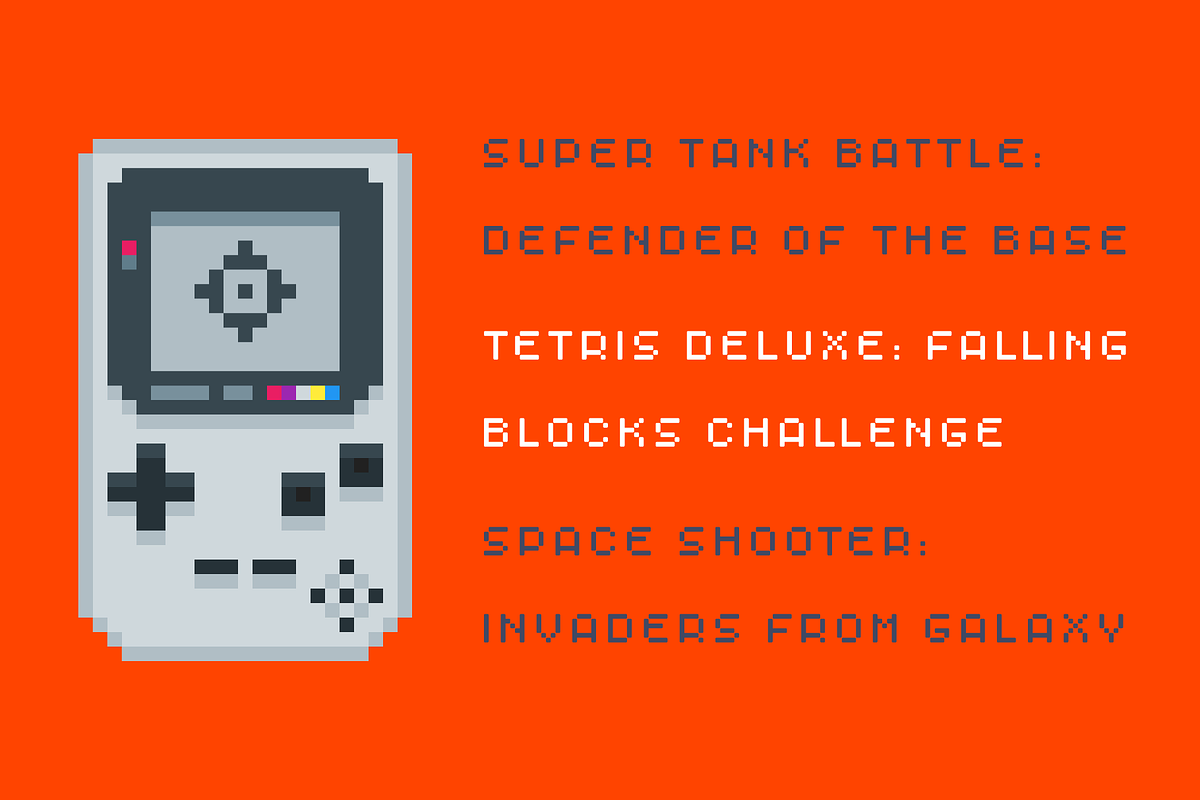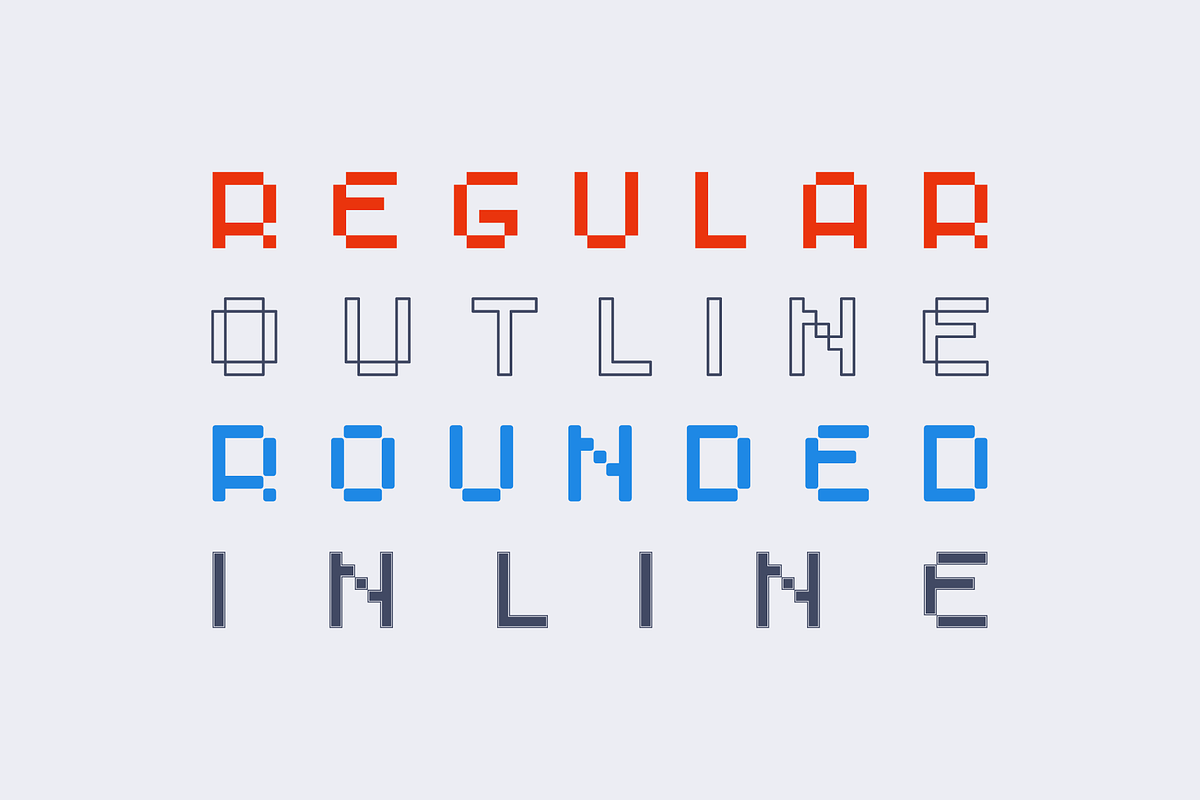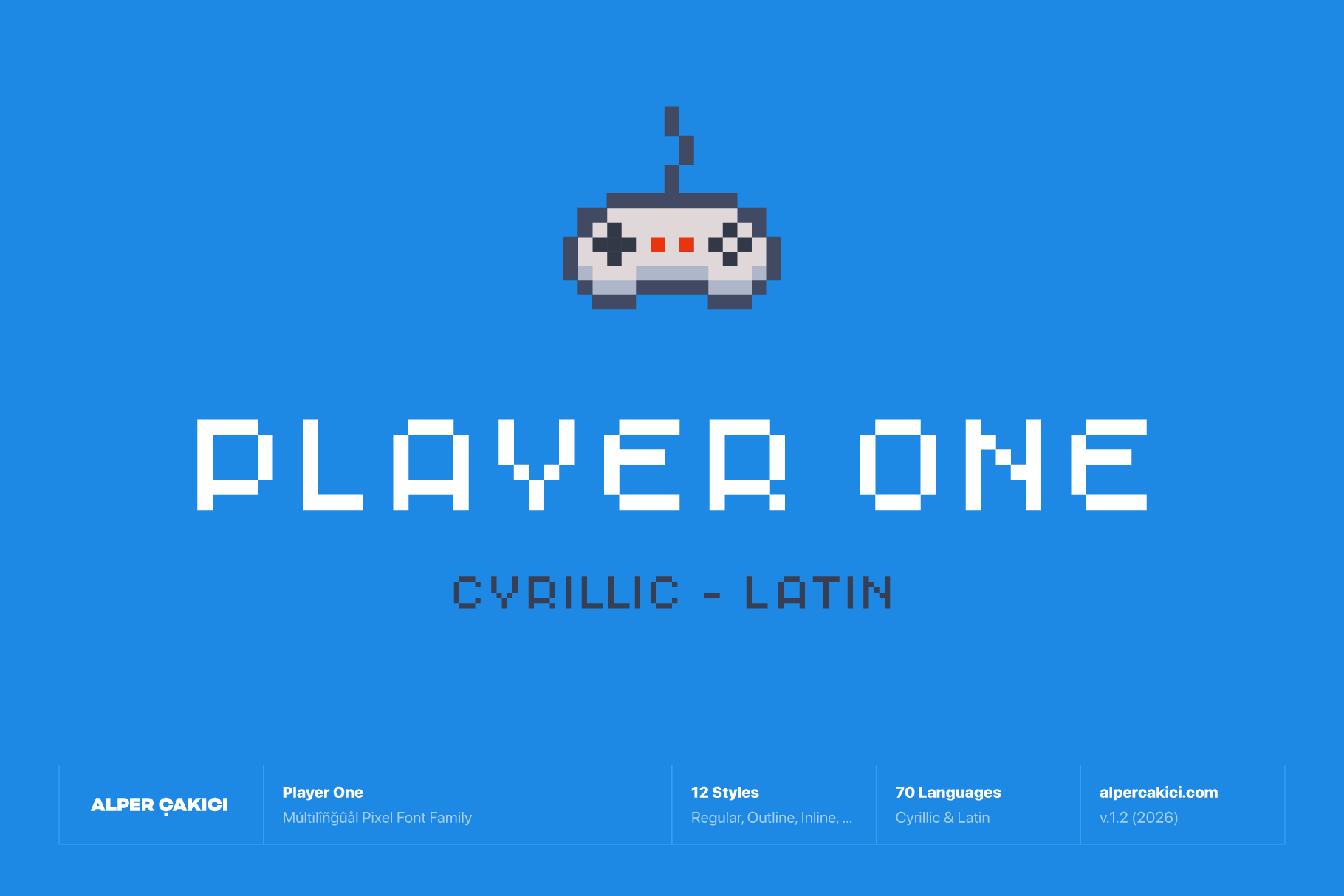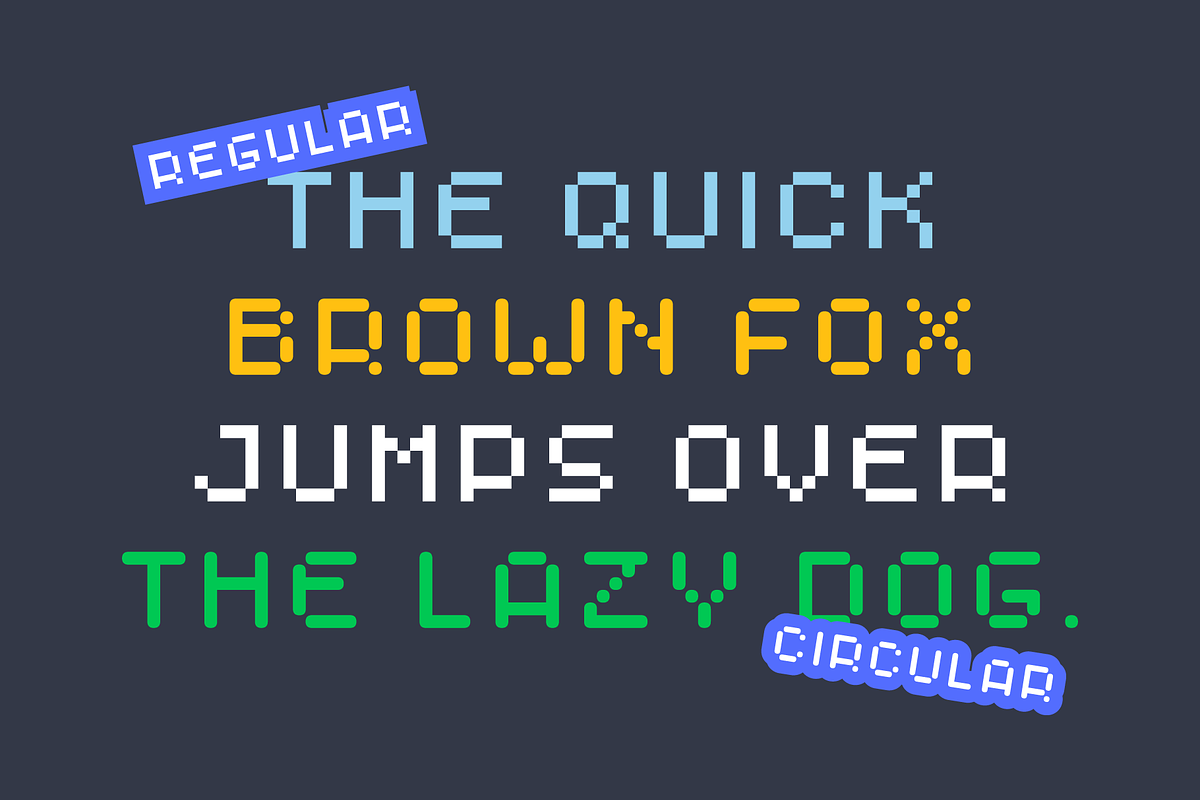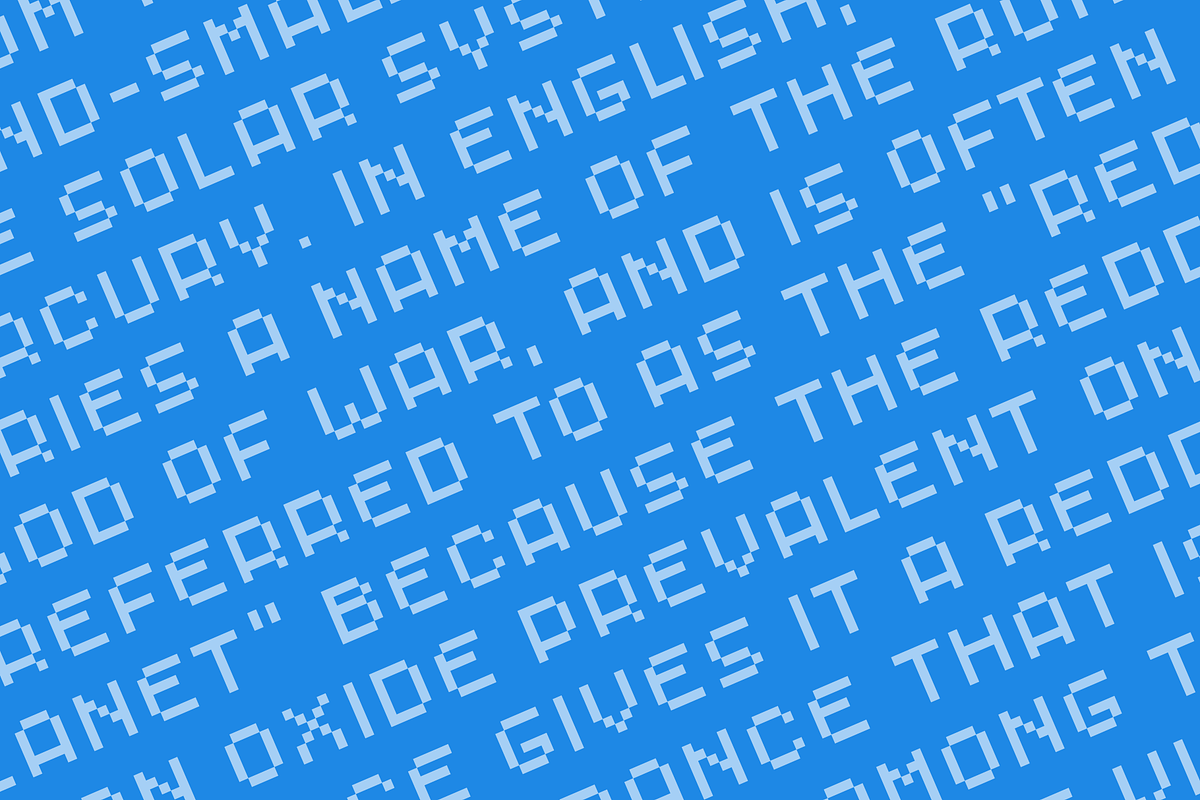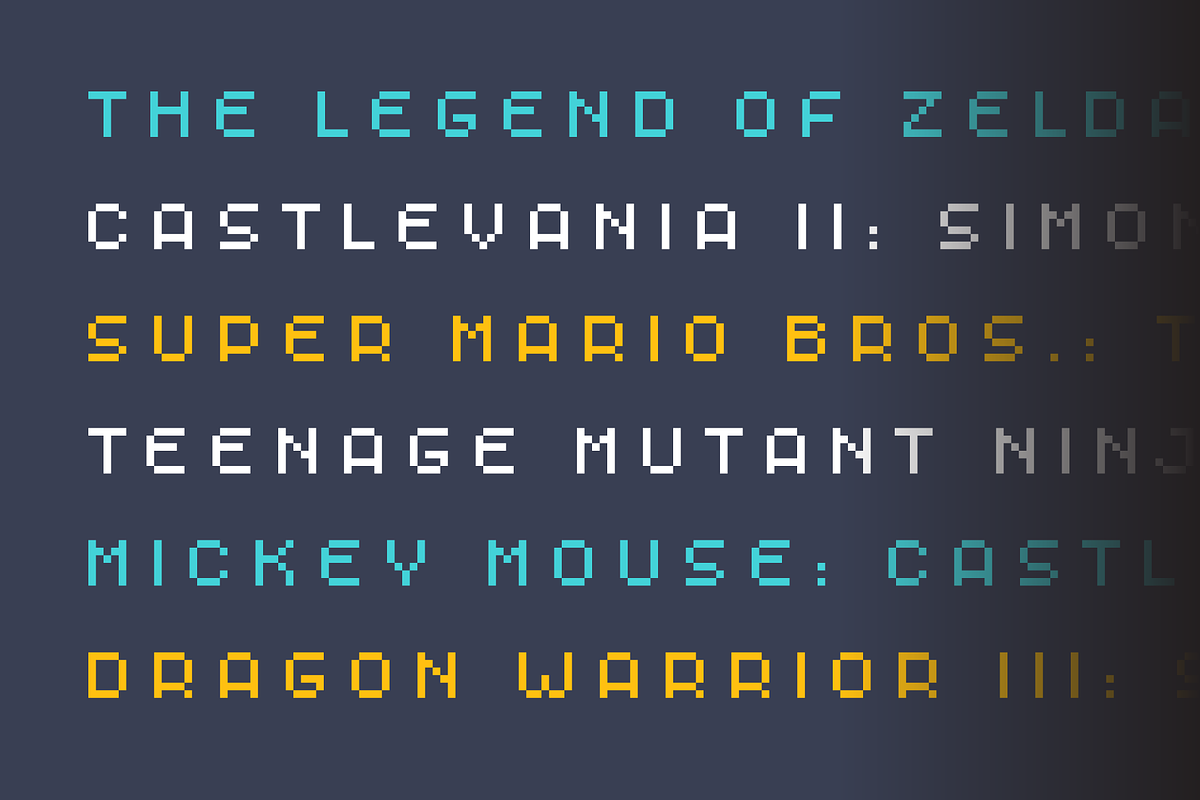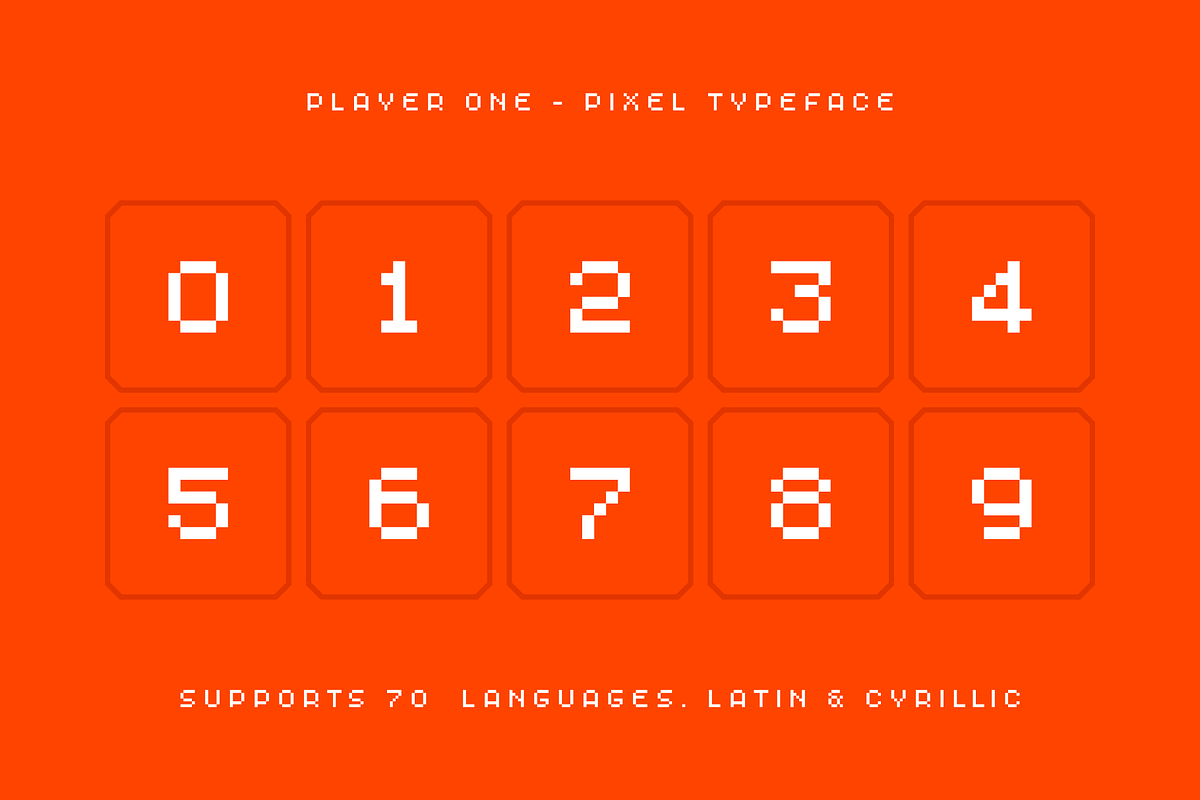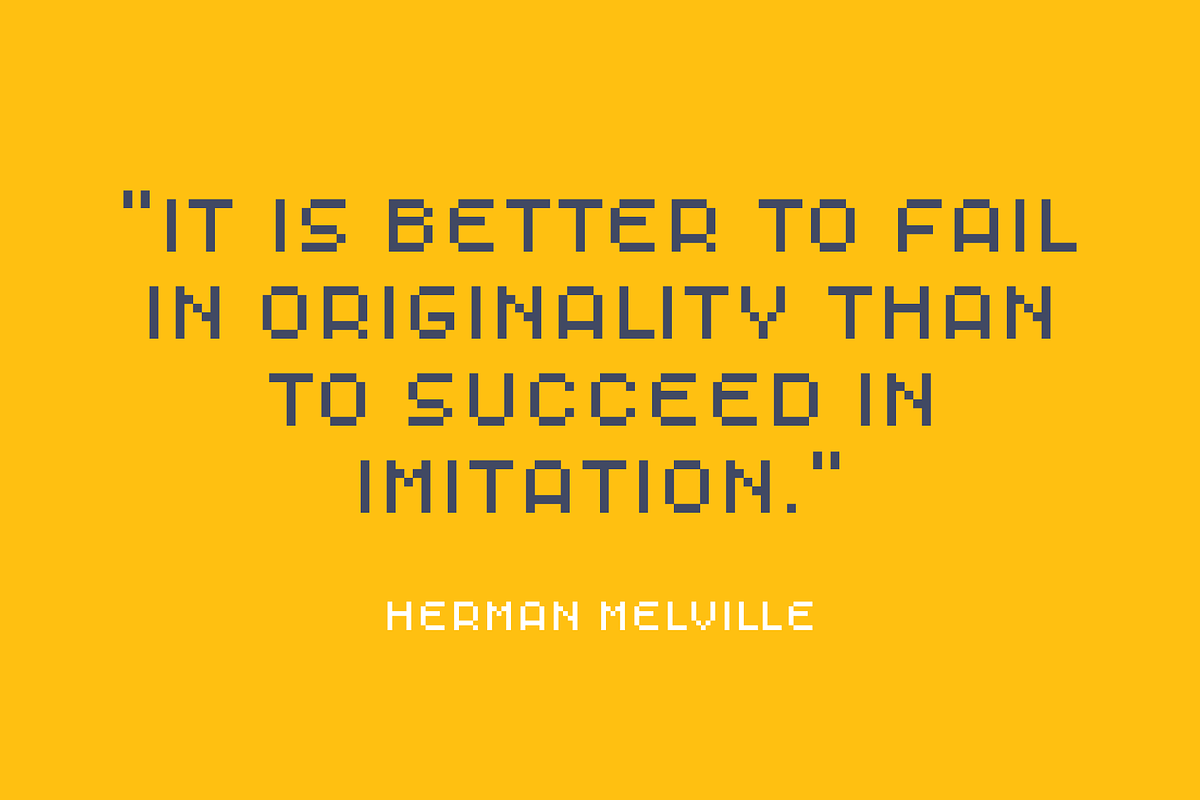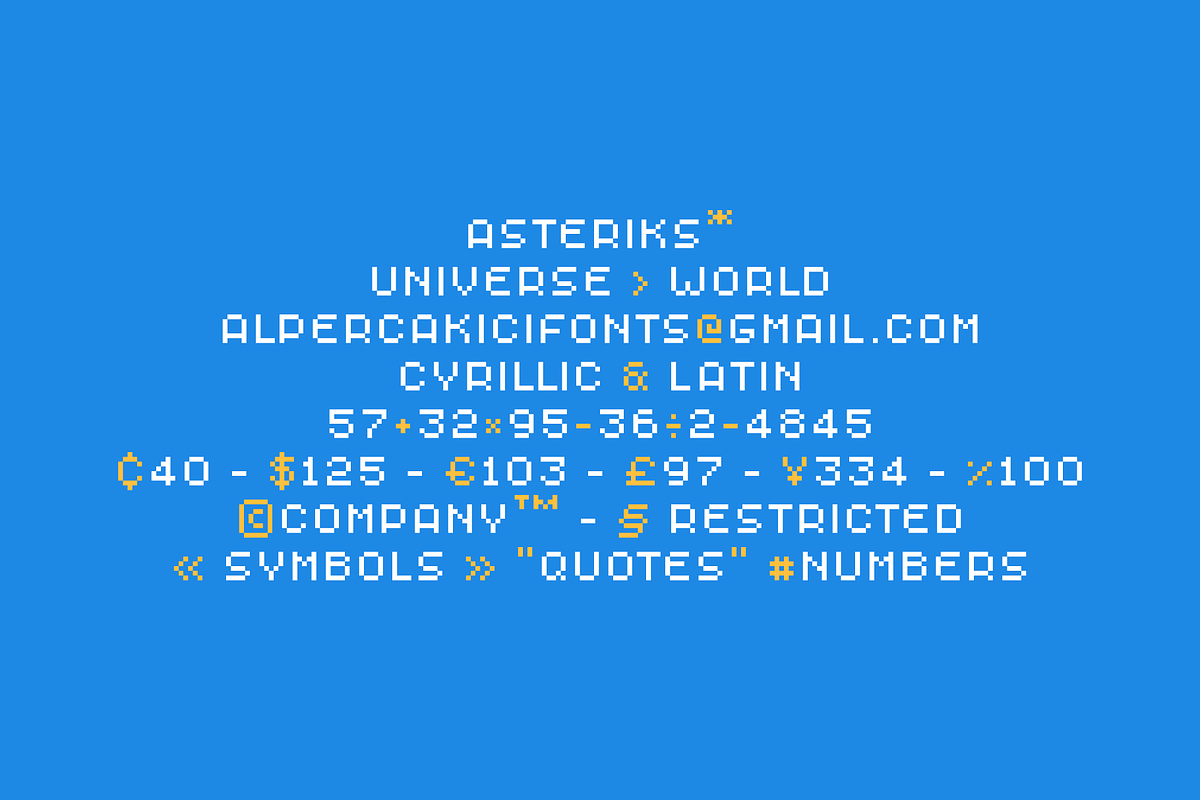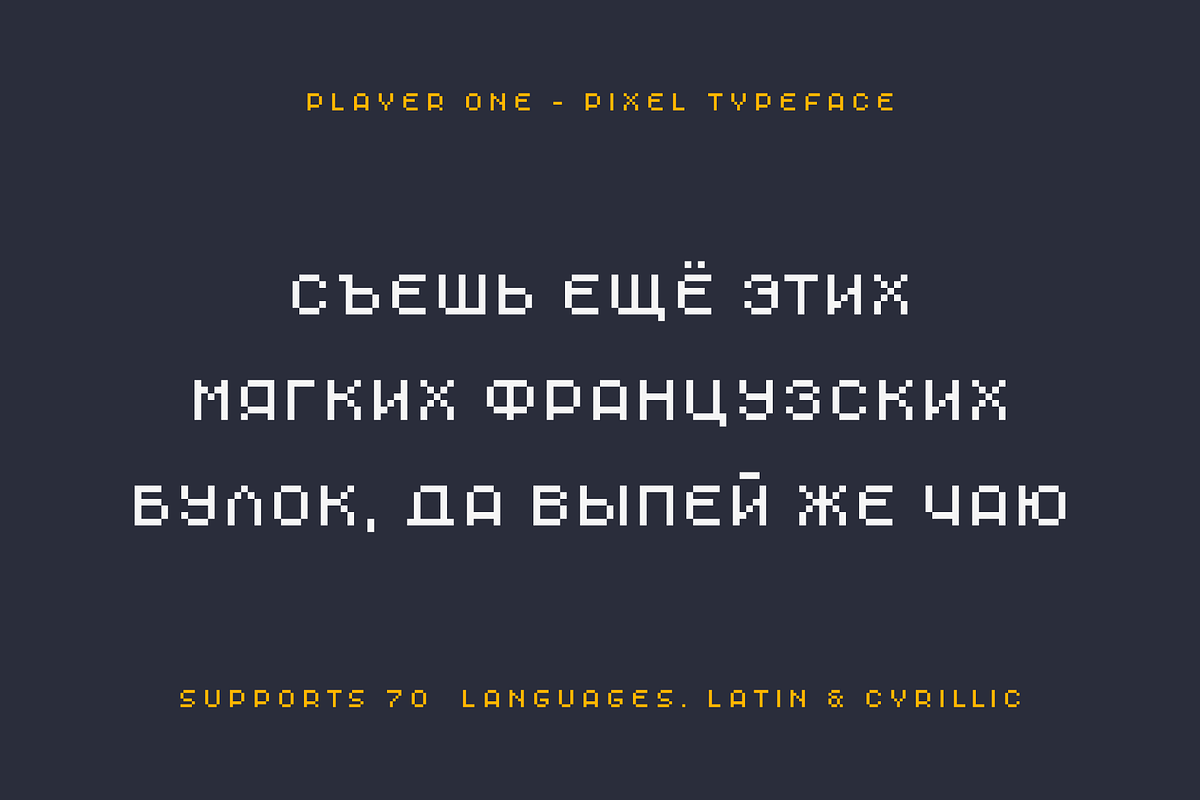
Player One - Pixel Typeface
Player One is a versatile pixel typeface family inspired by the golden age of arcade gaming, early home computers, retro consoles, and classic bitmap graphics. Designed with crisp geometric construction and a carefully balanced pixel grid, it captures the nostalgic spirit of 8-bit and 16-bit digital typography while remaining highly functional for contemporary design projects.
The family includes twelve styles that expand the visual possibilities of traditional pixel lettering. Alongside the core Regular style, Player One features Rounded and Circular variants that introduce softer, friendlier forms while preserving the authentic pixel aesthetic. Inline, Outline, and Shadow companions provide instant depth, dimension, and display impact, making it easy to create layered typographic compositions without additional effects.
Despite its retro roots, Player One is built for modern applications. Its clean structure and strong readability make it suitable for video game branding, streaming graphics, esports identities, user interfaces, posters, merchandise, packaging, social media content, and technology-focused design. The decorative styles are particularly effective for headlines, logos, titles, and promotional graphics where a distinctive digital personality is desired.
Supporting both Latin and Cyrillic character sets, Player One offers broad multilingual coverage across a wide range of European languages. With 307 glyphs and a diverse collection of stylistic variations, the family provides designers with a complete toolkit for creating authentic pixel-inspired visuals ranging from nostalgic retro aesthetics to contemporary digital branding.
Whether you're designing a game title screen, crafting a retro-futuristic identity, or adding vintage computer charm to a modern project, Player One delivers the unmistakable character of pixel typography with the flexibility of a full-featured type family.